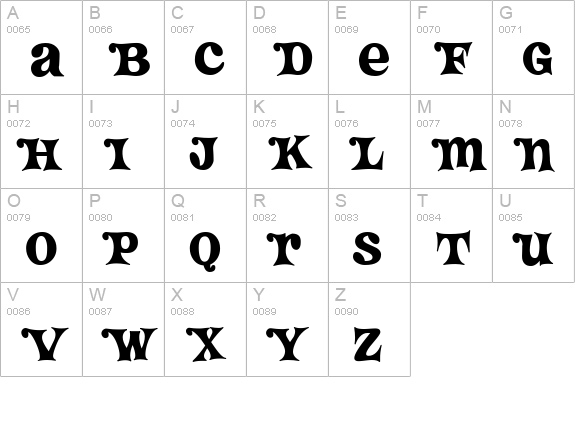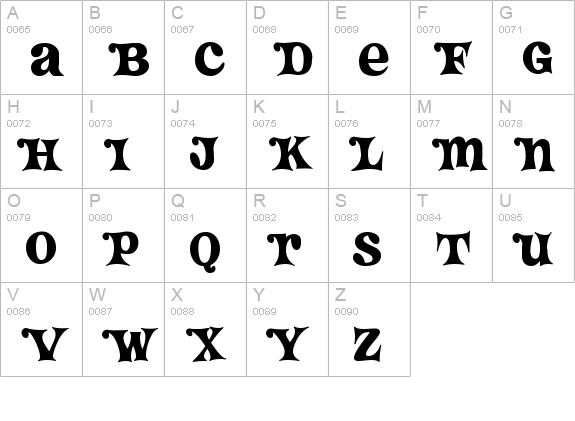
Crazy HaroldAlt Flare font is a whimsical and energetic typeface that brings a touch of fun and playfulness to any design project. With its unique and bold letterforms, this font is perfect for adding a quirky and dynamic element to your designs. The Crazy HaroldAlt Flare font is freely available to download at FontsMarket.com, making it easy for designers to access this versatile and eye-catching typeface for their creative projects. Whether you're working on a poster, logo, or any other design, Crazy HaroldAlt Flare font is sure to make a statement and grab the attention of your audience. With its free availability and distinctive style, Crazy HaroldAlt Flare font is a must-have for any designer looking to add a touch of whimsy and personality to their work. Download it today and let your creativity soar with this fun and vibrant typeface.